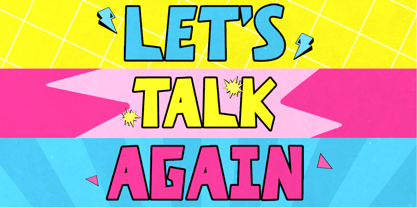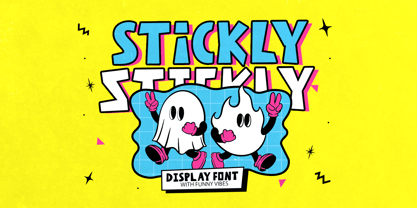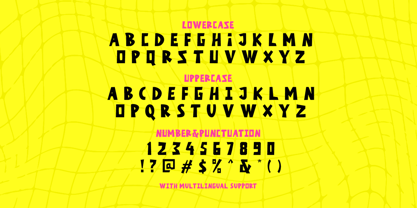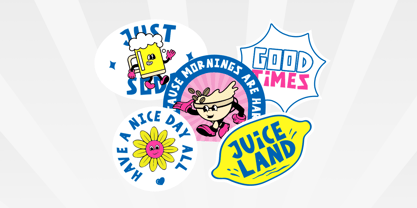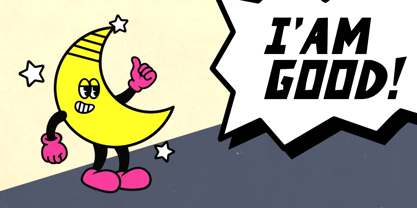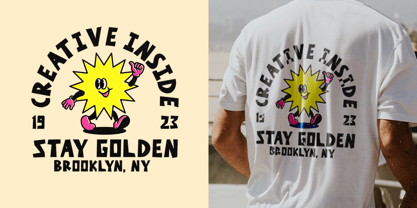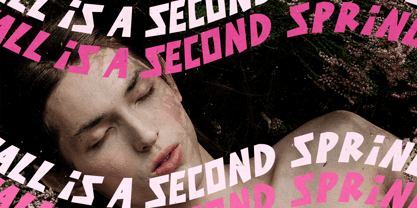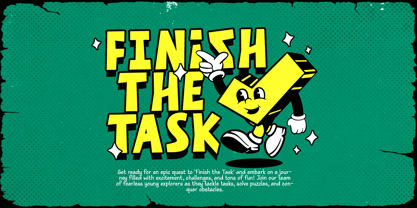
Stickly
by Bale Type
The Stickly Font Family was designed by Dzikrul Aulia and published by Bale Type. Stickly contains 2 styles and family package options. More about this family
Stickly is a fun and playful display font that have unique shape. This font contains different lowercase and uppercase that you can use both in the same word to make your design more creative and attractive. You can use this font for so many purpose, such as festival poster, quotes, sticker, or even cartoon movie tittle. This font also support multi language.
Designers: Dzikrul Aulia
Current Foundry: Bale Type